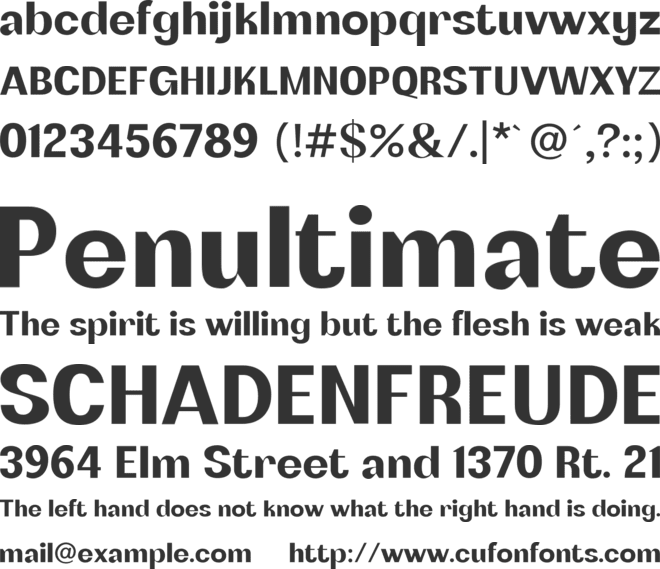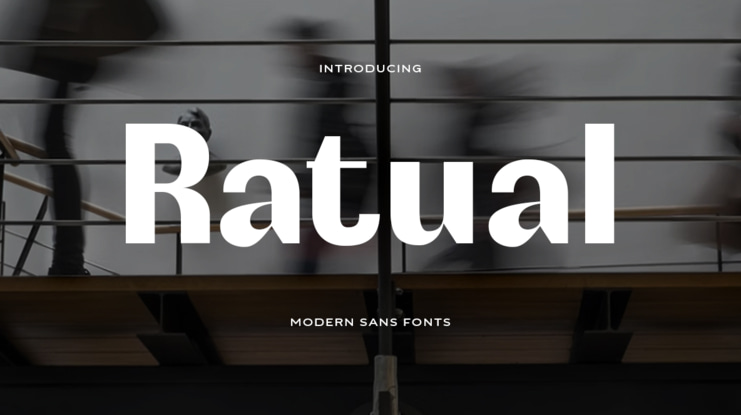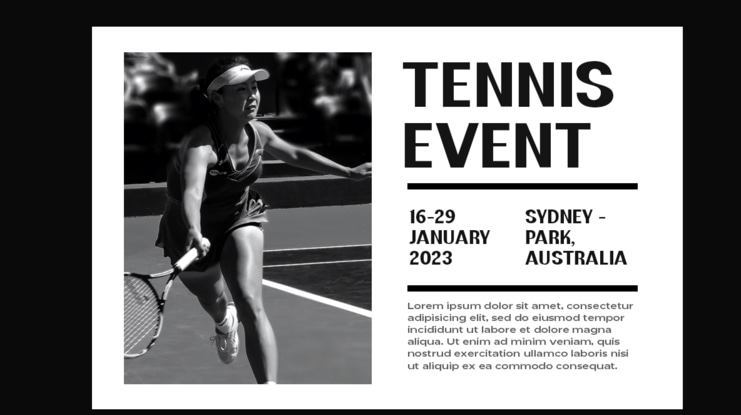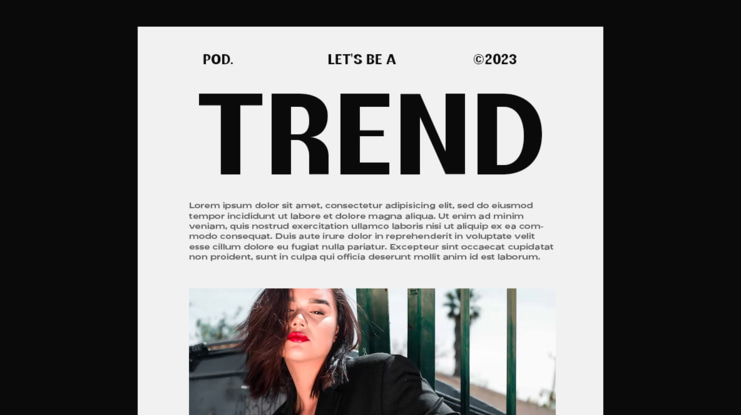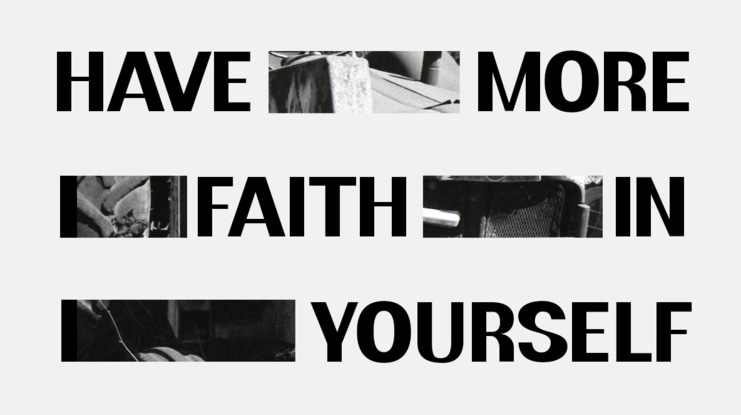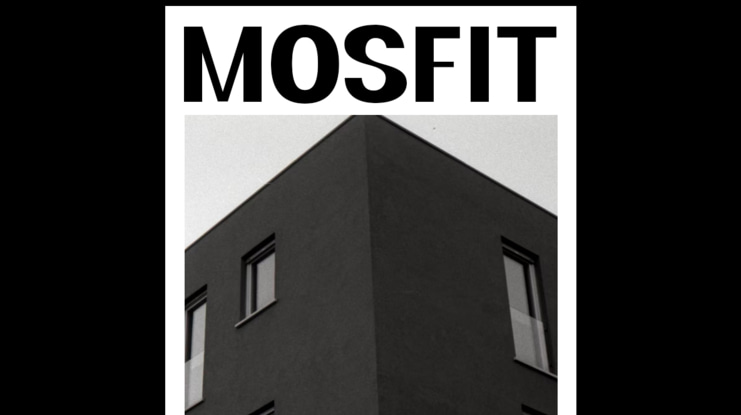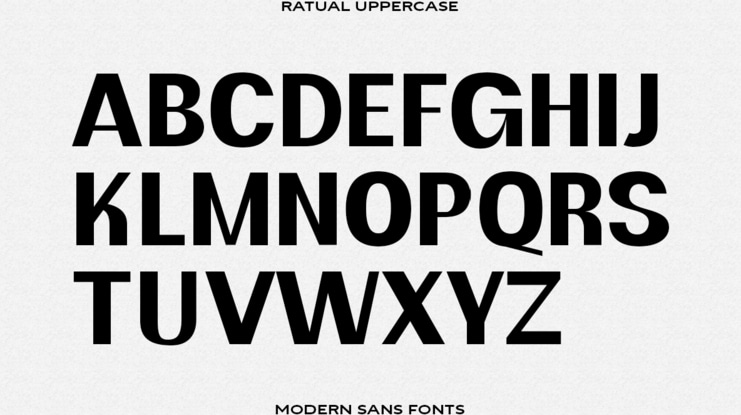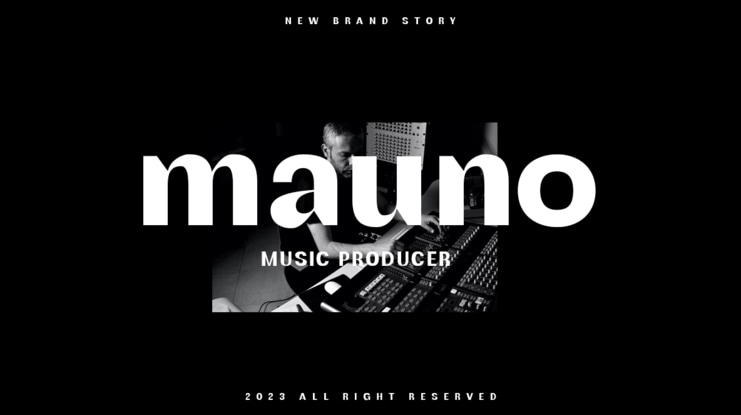
Ratual Font
Ratual Modern is a modern sans serif font suitable for a variety of design projects, including Logo, Branding, Advertising, Editorials, and more. With its minimalist and elegant characteristics, this font can give any design a professional and modern look.
Queen Modern also provides extensive multilingual support, allowing users to use this font in a variety of different languages without any problems. This font is available in OpenType format and can be used in various design applications such as Adobe Photoshop, Illustrator, and InDesign.
If you're looking for a high-quality, easy-to-use modern sans serif font, Ratual Modern can be the right choice. Give this font a try and see how it can enhance the look of your designs.